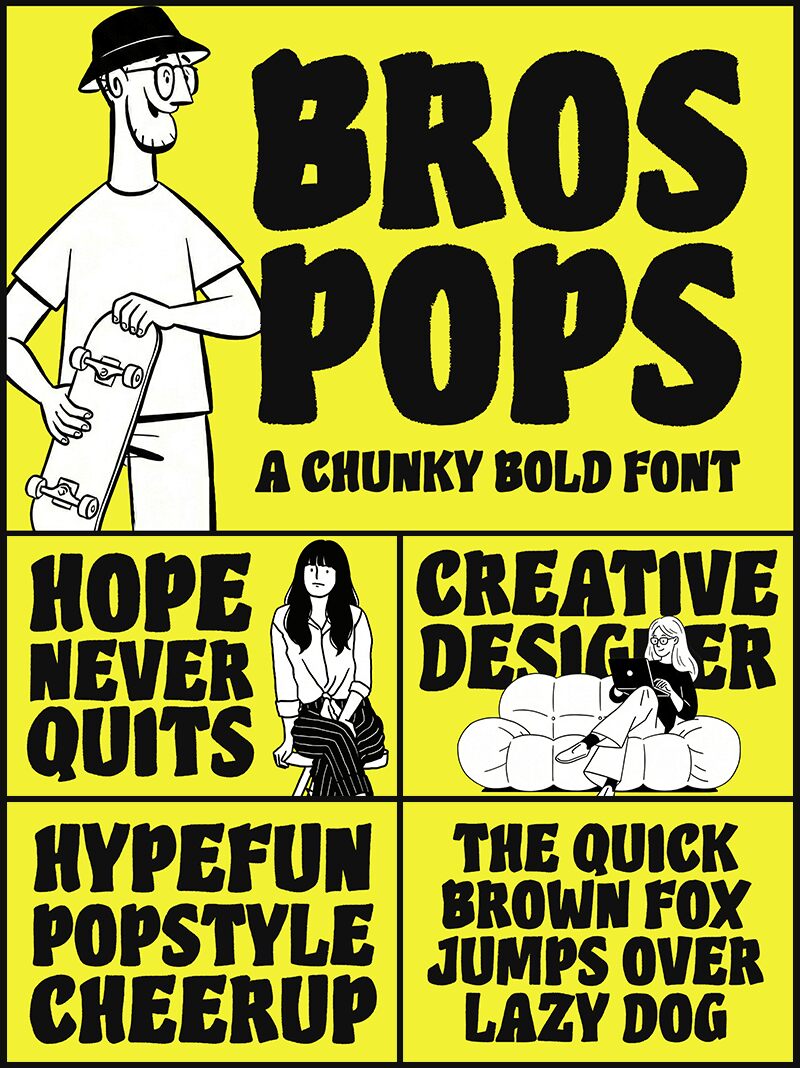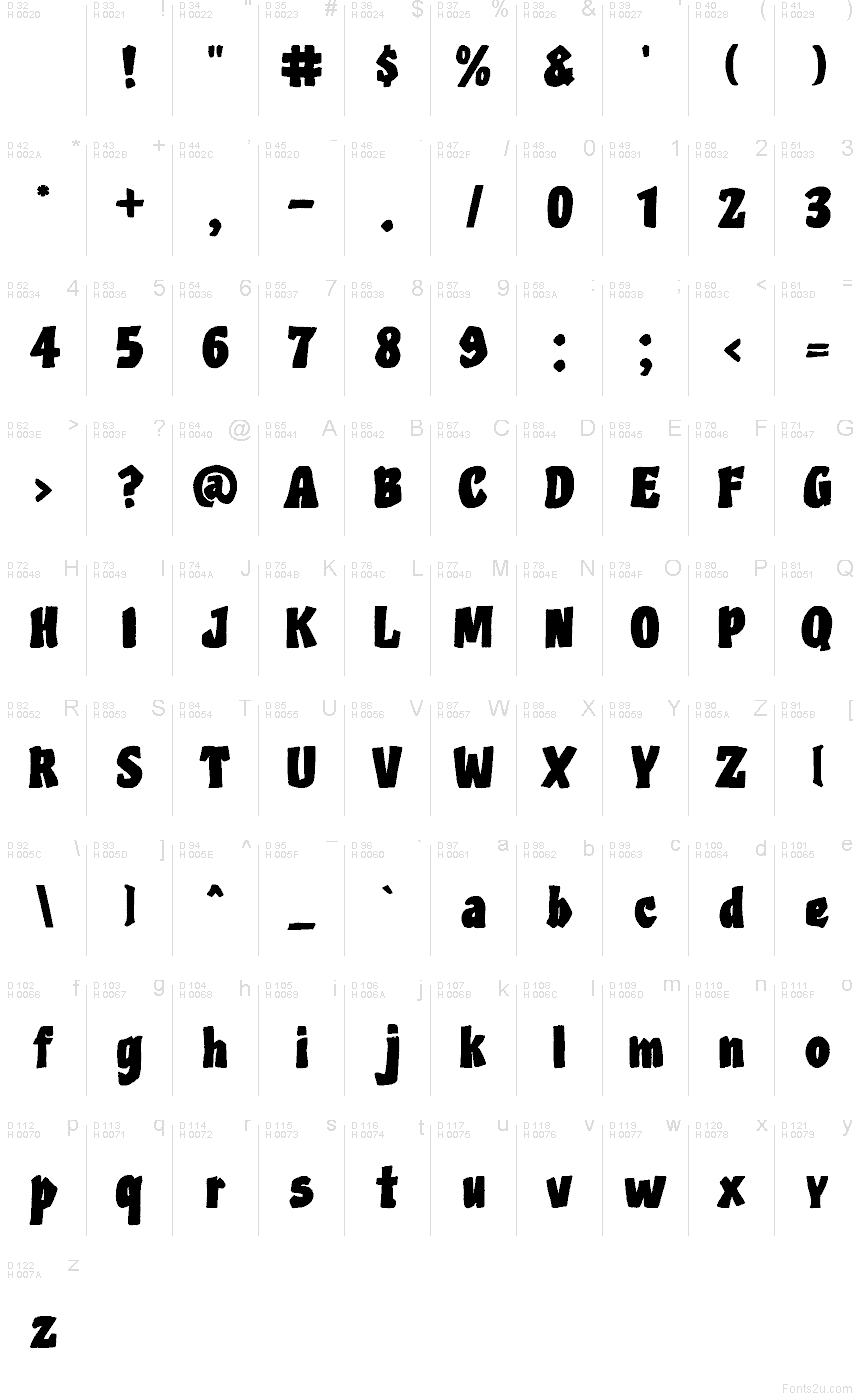
Bros Pops font by Blankids is a free playful display typeface with chunky, hand-drawn letters that feel like they’ve been cut from thick paper or splashed on with a marker. The forms are bold, rounded, and a little uneven, giving your titles a noisy, energetic presence that still feels friendly and approachable. There’s a subtle “splat” vibe in the strokes, so headlines look loud and fun without turning messy or hard to read.
Using Bros Pops, you can push loud branding and youthful concepts-think snack packaging, kids’ book covers, party invitations, game titles, YouTube thumbnails, and eye-catching stickers. This free font shines when set big and given room to breathe; pair it with a clean sans-serif for body text to keep layouts balanced and readable while Bros Pops does the shouting.